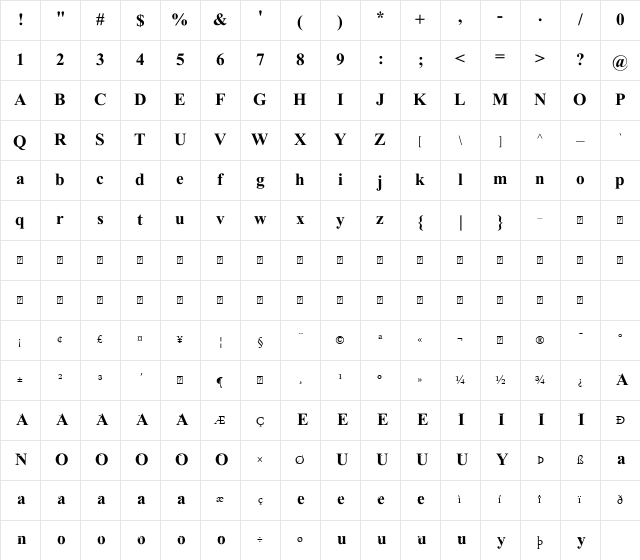
1 MUHAMMADI QURANIC Regular
Design Context for 1 MUHAMMADI QURANIC
1 MUHAMMADI QURANIC is a composed and adaptable typeface that performs quietly and consistently across a wide range of design contexts.